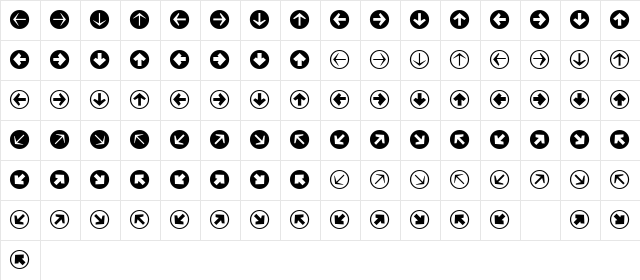
Mini Pics Directional RA Regular
Design Context for Mini Pics Directional RA
Mini Pics Directional RA is a composed and adaptable typeface that performs quietly and consistently across a wide range of design contexts.